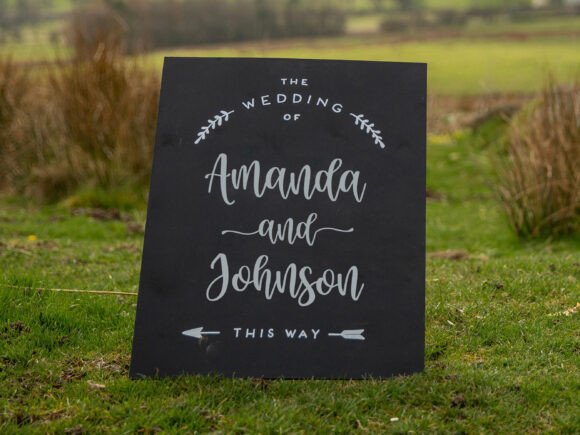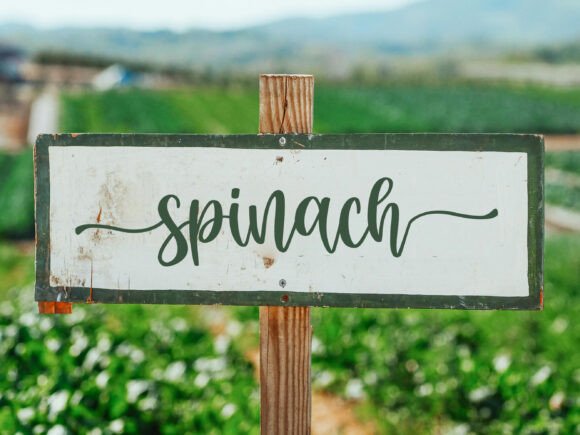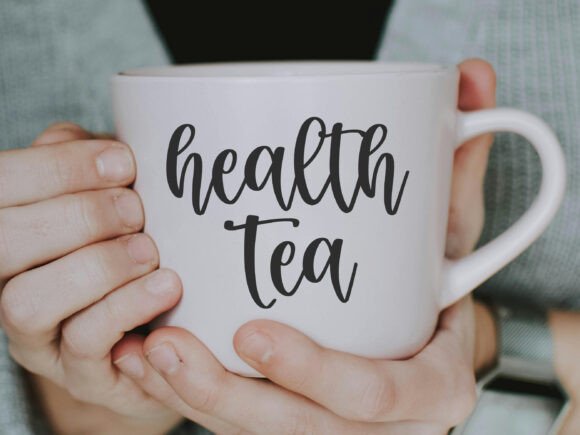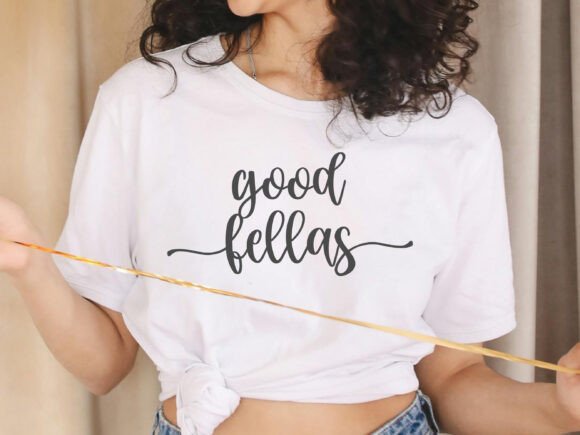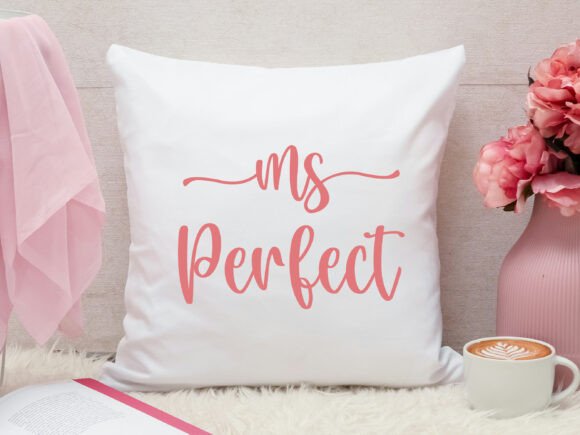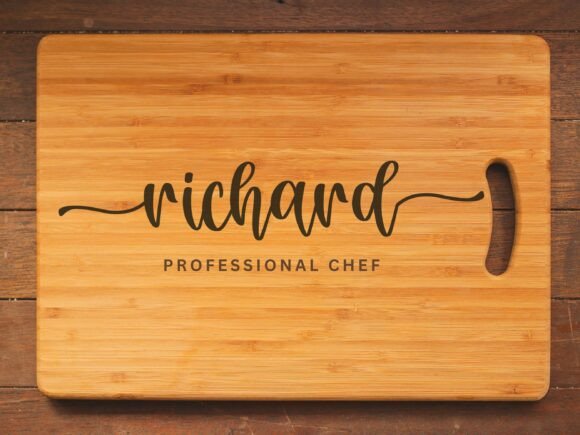
Introducing Blush Font: The Ultimate Elegance for Your Designs
Are you a designer or crafter looking for a font that exudes elegance and sophistication? Look no further than Blush Font, a stylish and incredibly elegant script font that is perfect for adding a handwritten touch to your designs. In this article, we’ll dive into the world of Blush Font and explore its features, uses, and benefits.
What is Blush Font?
Blush Font is a beautiful script font that is designed to add a touch of elegance and sophistication to your designs. Its flowing lines, intricate details, and refined aesthetic make it perfect for a variety of applications, from wedding invitations and thank you cards to quotes, greeting cards, logos, and business cards.
Key Features of Blush Font
So, what makes Blush Font so special? Here are some of its key features:
- Elegant and Refined Aesthetic: Blush Font has a sophisticated and elegant look that is perfect for designs that require a touch of luxury and refinement.
- Handwritten Touch: The font’s script style gives it a handwritten feel that is perfect for adding a personal touch to your designs.
- Versatile: Blush Font is versatile and can be used for a variety of applications, from wedding invitations and greeting cards to logos and business cards.
- Easy to Read: Despite its elegant and refined aesthetic, Blush Font is easy to read and understand, making it perfect for designs that require a clear and concise message.
Uses of Blush Font
Blush Font is perfect for a variety of design applications, including:
- Wedding Invitations: Add a touch of elegance and sophistication to your wedding invitations with Blush Font.
- Thank You Cards: Express your gratitude with style and elegance using Blush Font.
- Quotes: Add a touch of refinement and sophistication to your quotes with Blush Font.
- Greeting Cards: Create beautiful and elegant greeting cards for special occasions using Blush Font.
- Logos: Add a touch of elegance and sophistication to your logos with Blush Font.
- Business Cards: Create professional and elegant business cards using Blush Font.
Benefits of Using Blush Font
So, why should you use Blush Font for your designs? Here are some of its benefits:
- Adds Elegance and Sophistication: Blush Font adds a touch of elegance and sophistication to your designs, making them perfect for special occasions and luxury brands.
- Stand Out from the Crowd: Blush Font is unique and distinctive, making it perfect for designers and brands that want to stand out from the crowd.
- Versatile: Blush Font is versatile and can be used for a variety of applications, making it a great addition to your font library.
Tips for Using Blush Font
Here are some tips for using Blush Font:
- Use it for Special Occasions: Blush Font is perfect for special occasions, such as weddings, anniversaries, and birthdays.
- Pair it with Other Fonts: Blush Font can be paired with other fonts to create a unique and distinctive look.
- Experiment with Different Sizes and Colors: Experiment with different sizes and colors to find the perfect combination for your design.